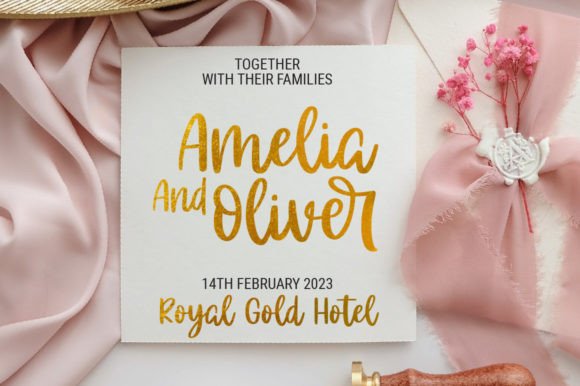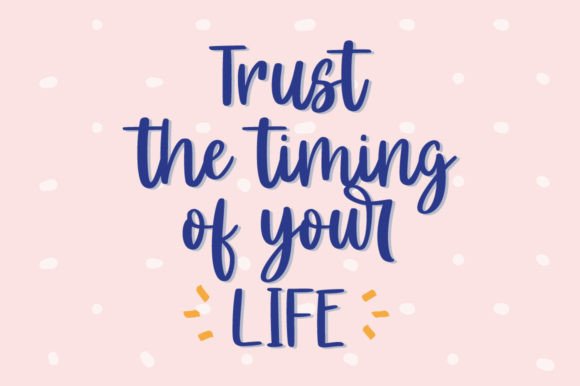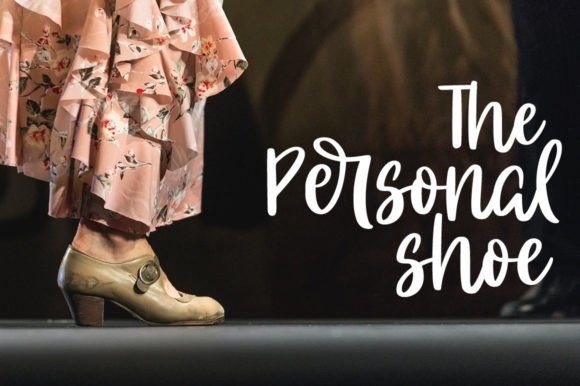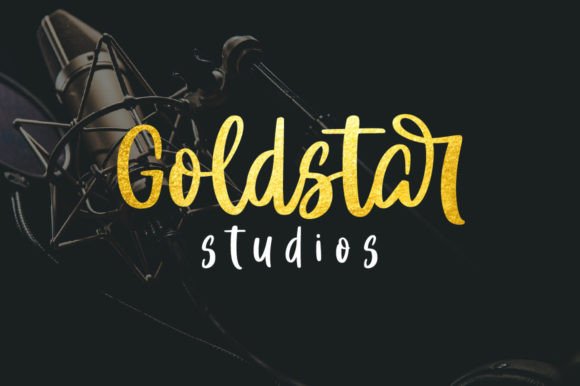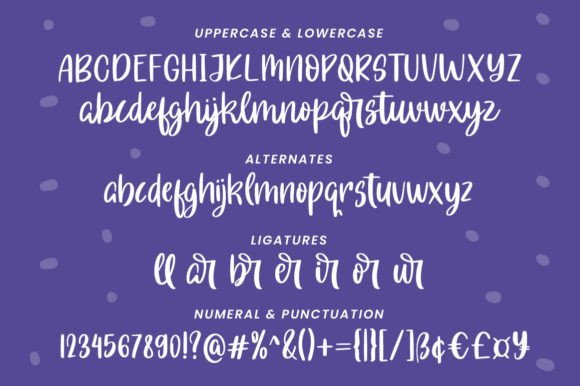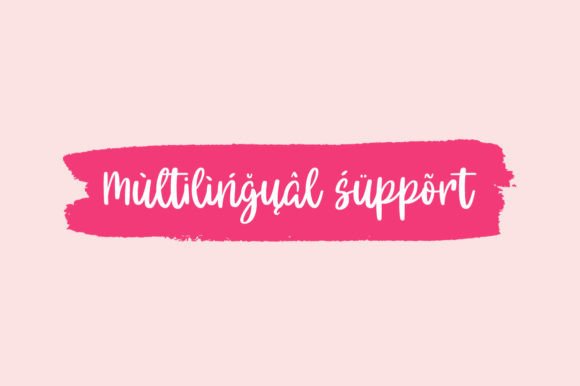
Introduction to Night Howler Font
Night Howler is a fun but also elegant brush handwritten font.
Night Howler font is perfect for logos, wedding stationery, cards, gift designs, photography, watermark, product packaging, and handwritten quotes This font is PUA encoded, which means you can access all of the glyphs and swashes with ease.
Key Features of Night Howler Font